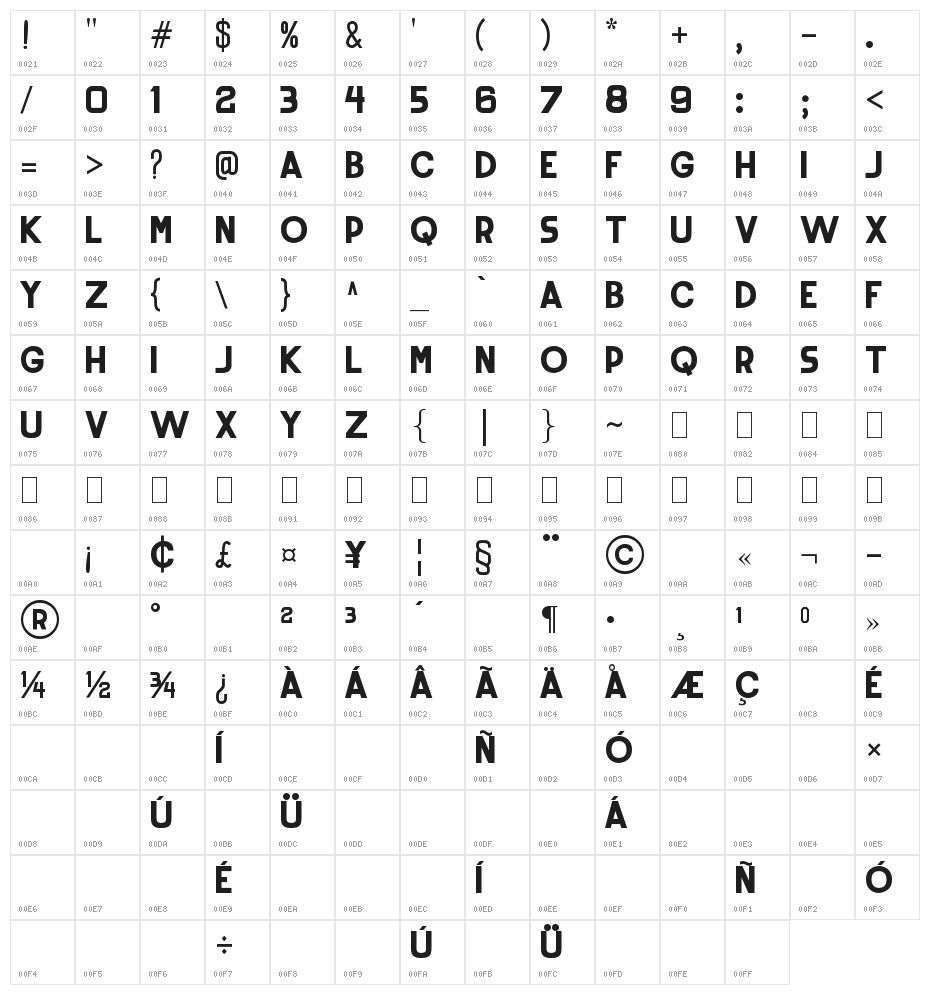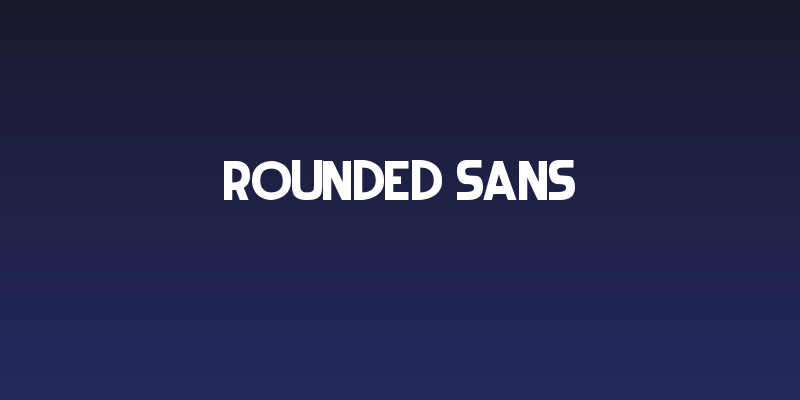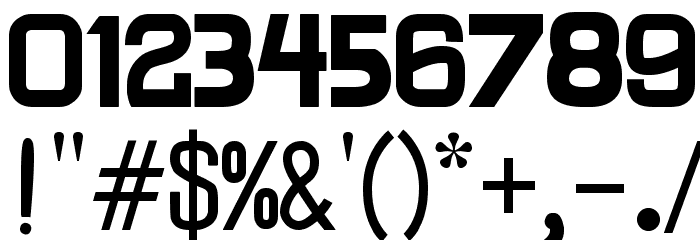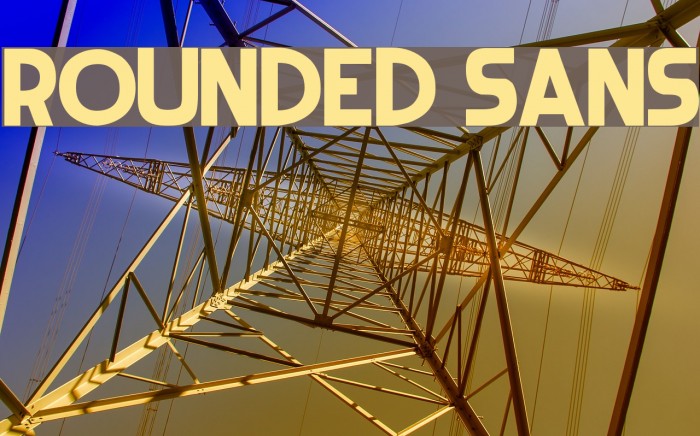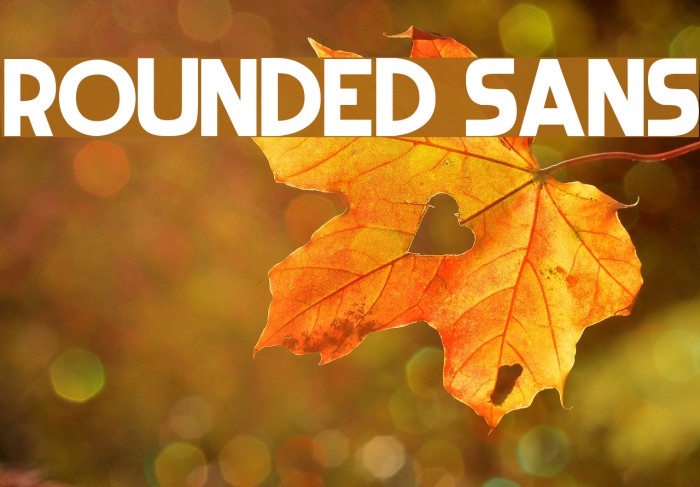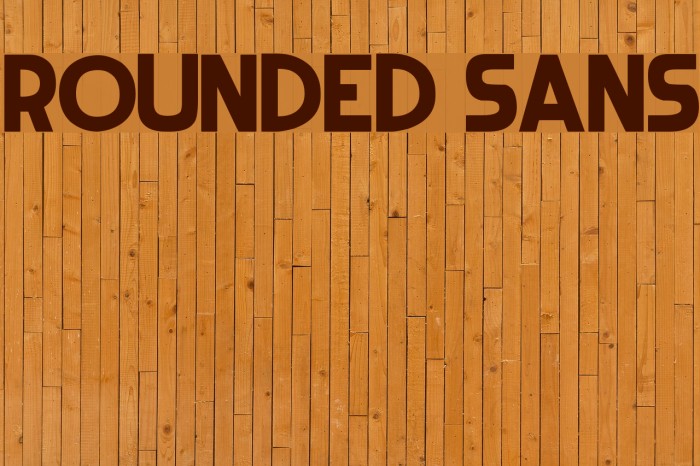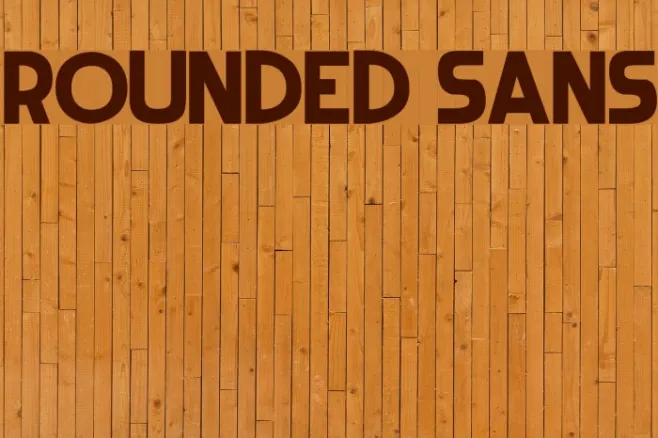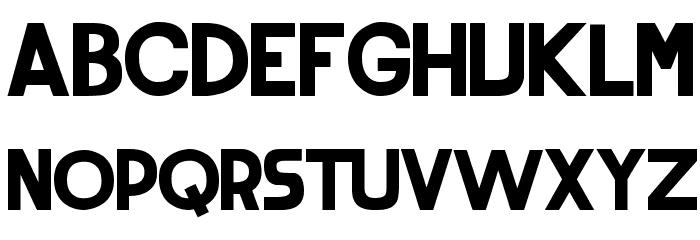
Rounded Sans Font
Rounded Sans Description
This font features a clean, modern aesthetic with rounded edges that soften its overall appearance. The characters are bold and uniform, providing a strong visual impact while maintaining readability. The rounded terminals give it a friendly and approachable feel, making it suitable for a variety of applications. The numerals and special characters are consistent with the alphabet, ensuring a cohesive look across all text elements. Its simplicity and clarity make it versatile for both digital and print media.
| Proposed Projects | Ideal for branding, advertising, web design, and user interfaces where a modern and approachable look is desired. |